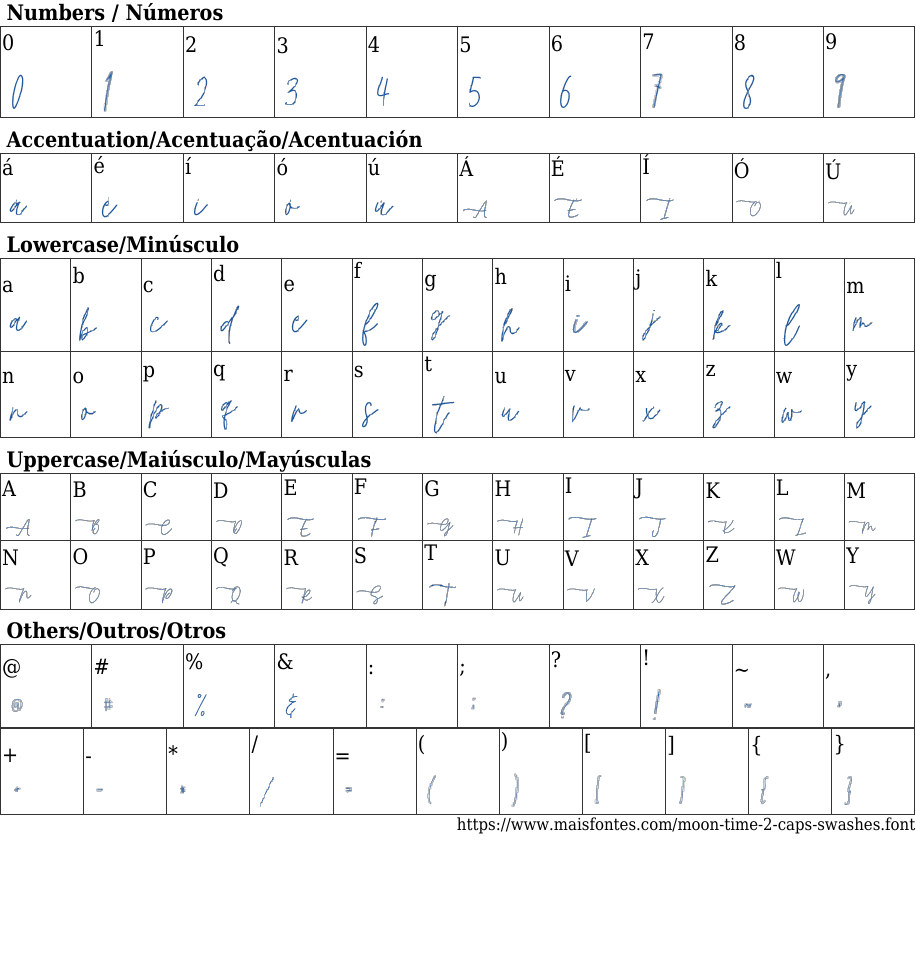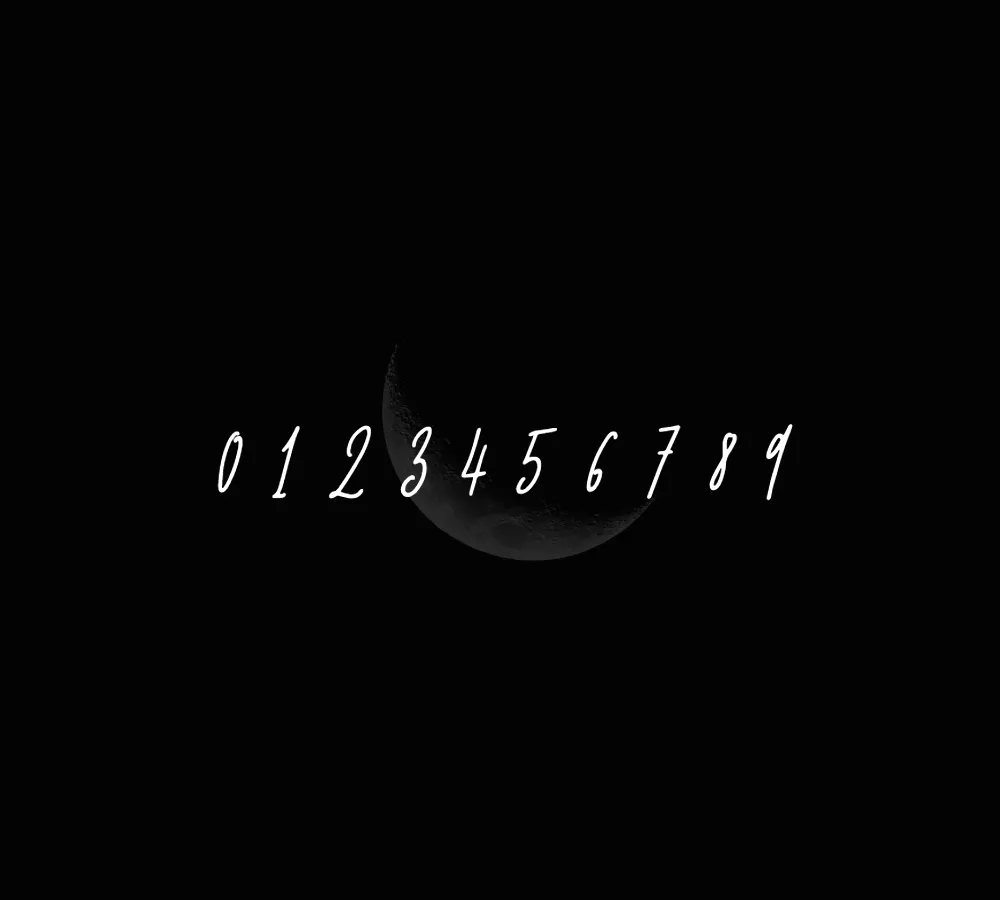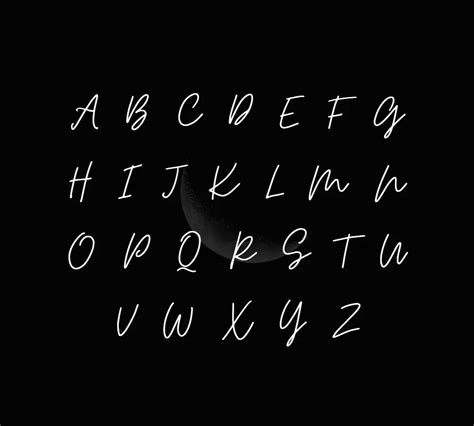
Moon Time Font Download
Moon Time Font Download - Moontime regular font is a handwritten,script type font that can be used on any device such as pc, mac, linux, ios. Discover the free moon time regular font at free font download ! Then you need the moontime font! Moontime regular font download is available free from 8font.com. Elevate your designs with moon time regular font. Looking for a font that’s both modern and distinctive? Moon time regular is a handwritten script font designed by dmitriychirkov. It belongs to the moontime font family and falls under the handwritten and script categories. This modern calligraphy monoline script has gentle curves to produce a font that’s completely. Installable on pc, mac, linux, ios, and android platforms.
Moon time regular is a handwritten script font designed by dmitriychirkov. It belongs to the moontime font family and falls under the handwritten and script categories. Moontime regular font download is available free from 8font.com. Discover the free moon time regular font at free font download ! Moontime regular font is a handwritten,script type font that can be used on any device such as pc, mac, linux, ios. Looking for a font that’s both modern and distinctive? Then you need the moontime font! Elevate your designs with moon time regular font. Moontime font is free for personal use. Installable on pc, mac, linux, ios, and android platforms.
Elevate your designs with moon time regular font. This modern calligraphy monoline script has gentle curves to produce a font that’s completely. Then you need the moontime font! Discover the free moon time regular font at free font download ! Moontime font is free for personal use.
Moontime regular font download is available free from 8font.com. This modern calligraphy monoline script has gentle curves to produce a font that’s completely. It belongs to the moontime font family and falls under the handwritten and script categories. Elevate your designs with moon time regular font. Looking for a font that’s both modern and distinctive?
Moon time regular is a handwritten script font designed by dmitriychirkov. Looking for a font that’s both modern and distinctive? Moontime regular font is a handwritten,script type font that can be used on any device such as pc, mac, linux, ios. Installable on pc, mac, linux, ios, and android platforms. Discover the free moon time regular font at free font.
Moontime script Font
Then you need the moontime font! Looking for a font that’s both modern and distinctive? Moontime regular font is a handwritten,script type font that can be used on any device such as pc, mac, linux, ios. It belongs to the moontime font family and falls under the handwritten and script categories. Moontime regular font download is available free from 8font.com.
Looking for a font that’s both modern and distinctive? This modern calligraphy monoline script has gentle curves to produce a font that’s completely. Elevate your designs with moon time regular font. Then you need the moontime font! Link to purchase full version and commercial license :
Elevate your designs with moon time regular font. Moon time regular is a handwritten script font designed by dmitriychirkov. It belongs to the moontime font family and falls under the handwritten and script categories. Then you need the moontime font! Moontime regular font download is available free from 8font.com.
Installable on pc, mac, linux, ios, and android platforms. Elevate your designs with moon time regular font. Moon time regular is a handwritten script font designed by dmitriychirkov. Moontime regular font is a handwritten,script type font that can be used on any device such as pc, mac, linux, ios. This modern calligraphy monoline script has gentle curves to produce a.
Looking for a font that’s both modern and distinctive? Moon time regular is a handwritten script font designed by dmitriychirkov. This modern calligraphy monoline script has gentle curves to produce a font that’s completely. Link to purchase full version and commercial license : Discover the free moon time regular font at free font download !
This Modern Calligraphy Monoline Script Has Gentle Curves To Produce A Font That’s Completely.
It belongs to the moontime font family and falls under the handwritten and script categories. Elevate your designs with moon time regular font. Moontime font is free for personal use. Looking for a font that’s both modern and distinctive?